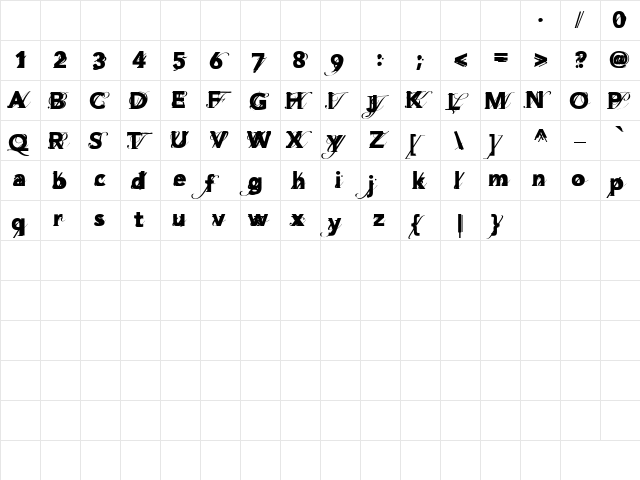
friction Regular
Design Context for friction Typeface
friction is a composed and adaptable typeface that performs quietly and consistently across a wide range of design contexts.